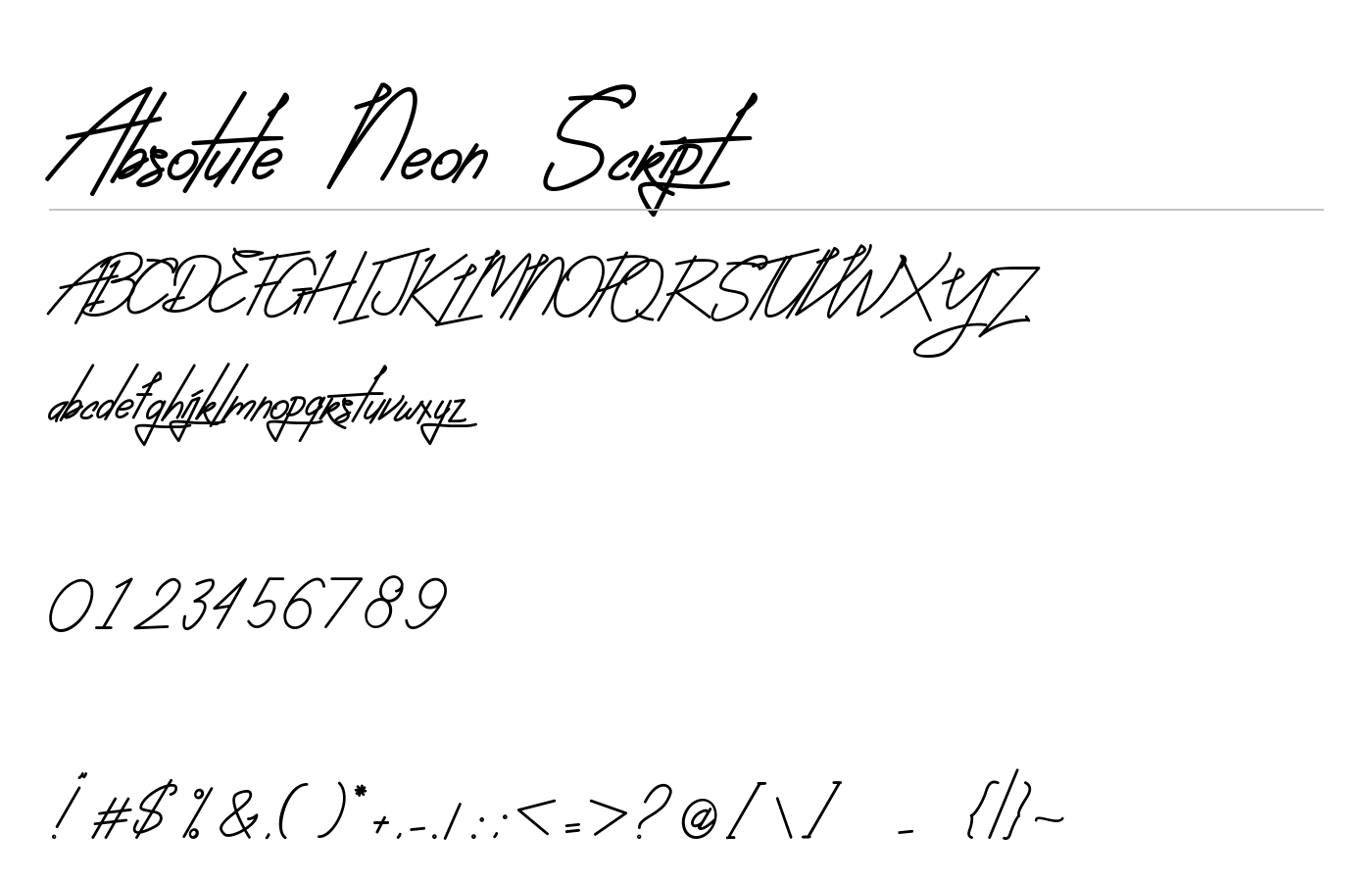
Absolute Neon Script is a distinctive, thin script font with a playful and energetic vibe, characterized by its sharp, angled strokes and casual handwritten style. Its narrow, airy letterforms with unique loops and quirky details lend a modern, informal feel that works well for creative branding, eye-catching logos, and trendy editorial designs. This font shines in settings where a fresh, dynamic personality is desired, adding a sense of movement and individuality.
Absolute Neon Script Font
About Absolute Neon Script Font
| Font family | Absolute Neon Script Font |
| Designer | Sigit Dwipa |